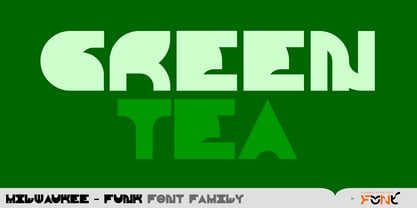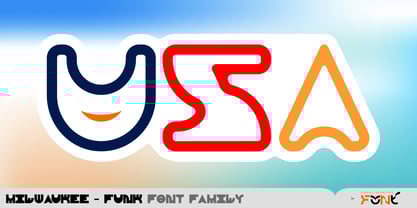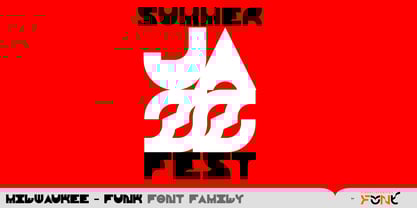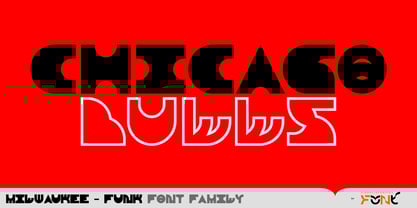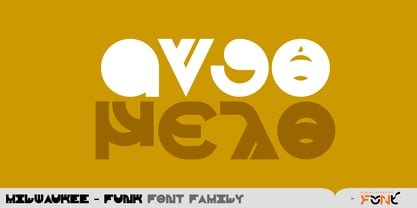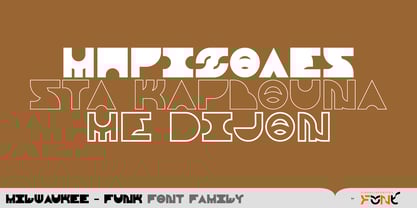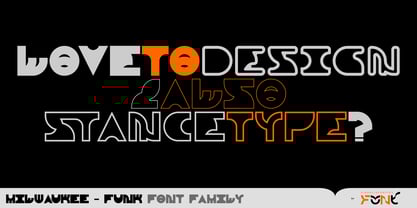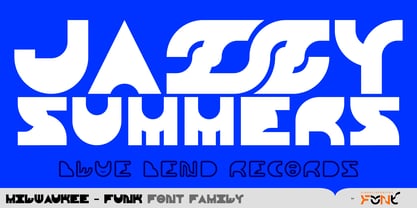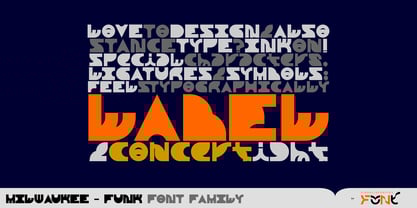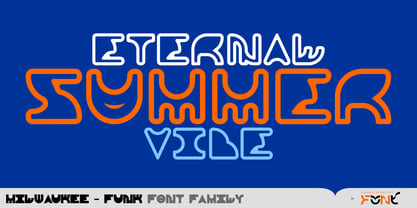
Milwaukee Funk
The Milwaukee Funk Font Family was designed by Tony Evreniadis and published by VisualizeUnited Fonts. Milwaukee Funk contains 8 styles and family package options. More about this family
Milwaukee Groove Font Family, is a differential approach to the initial Milwaukee Font Family; as the name suggests, with a Groove .Having that musical touch, it is suggested for “All That Move” that one can hear, see, sing, dance to & feel. It consists of uppercase & lowercase Latin & Extended Latin, Greek & Central European characters. It was initially inspired by Byzantine and Japanese typography and later from the cityscape of Milwaukee and its music scene, thus its name. This typeface comes in three styles and is suggested for logos, short titles, social media marketing, book covers, posters, music labels and other applications you will choose to go with. Enjoy Designing & Get Your Groove On!
We all envision to be able to create. This being said, Visualize aka Tony Evreniadis, a MultiDisciplinary Designer~Art Director~Founder of VisualizeUnited℠ designs typefaces as a way to contribute with continuous creativity. His fonts are coded as Opentype, in Latin, Extended Latin, Central European & Greek character-set, with ligatures selectively. They are optimally utilized, currently, as display fonts.Thank You!